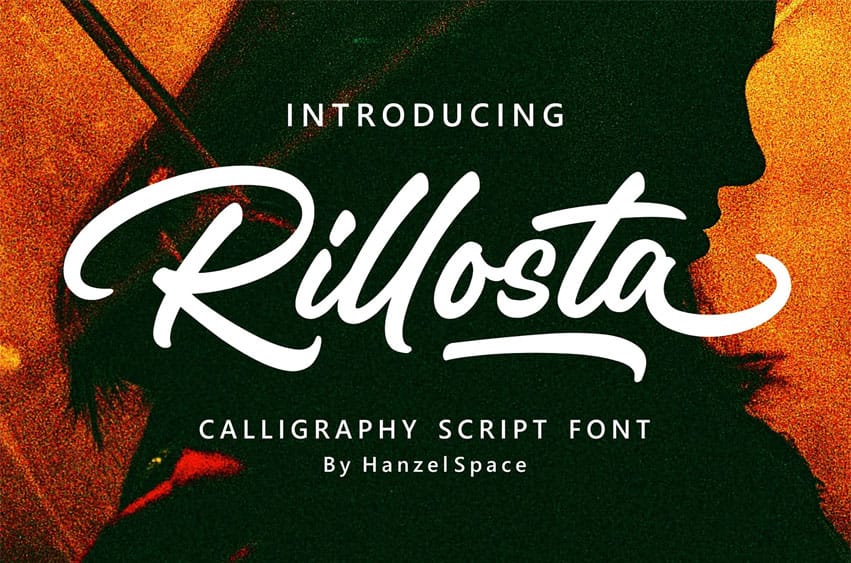
Rillosta Font is made with a slightly thick calligraphy equipped with alternative letters behind it, and if you pay attention, it looks elegant and attractive, so this font is very suitable for use in various designs for product branding, logos, labels, and others.
- Full Set of standard alphabet and punctuation
- An extra set of ending swashed lowercase
- Handwritten ligatures